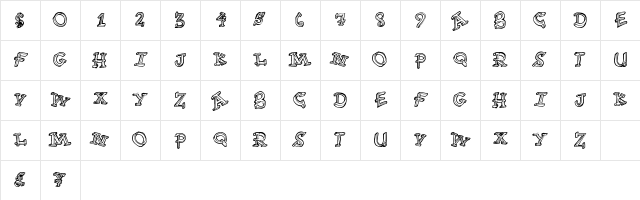
Complete FunTime Regular glyph index. Displaying only characters natively supported by FunTime Regular font.
FunTime has an approachable, lighthearted character - its loose, expressive forms are well-suited to children's content, casual branding, and fun-first design.
Font Pairing: Pairs well with a rounded or humanist sans for body copy, maintaining the friendly tone without relying on FunTime to carry extended reading.
Pro Tip: Use FunTime at larger display sizes where its expressive character can land. Pair with a clean, simple sans for body copy to maintain readability.